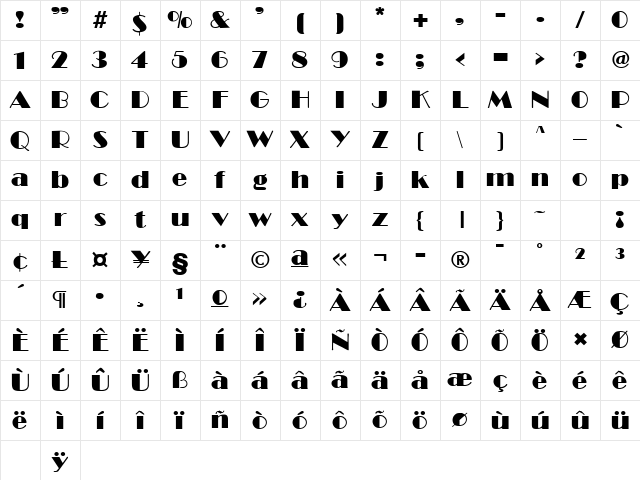
Broadway Regular Free Font
Broadway Regular
Design Context for Broadway
Broadway is a composed and adaptable typeface that performs quietly and consistently across a wide range of design contexts.